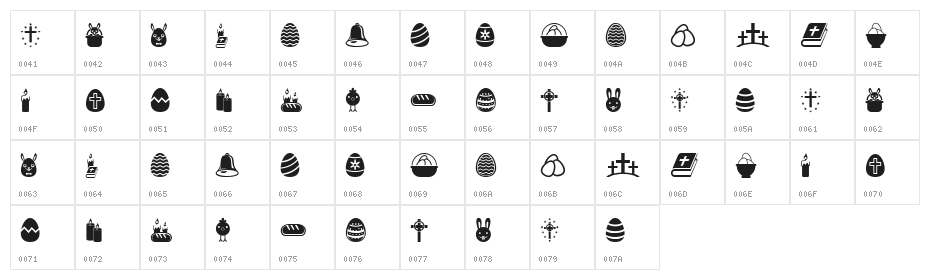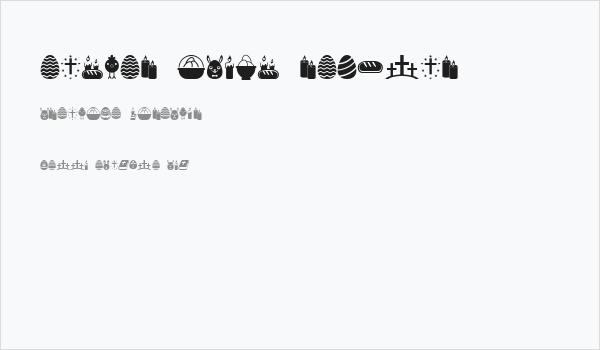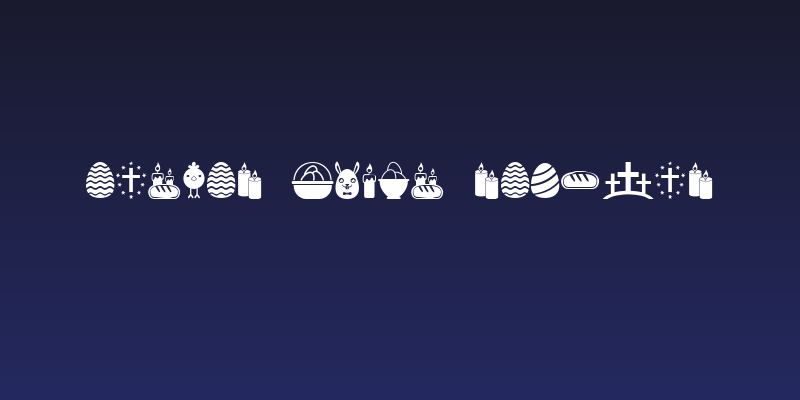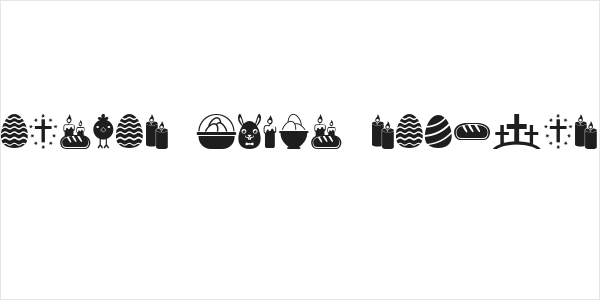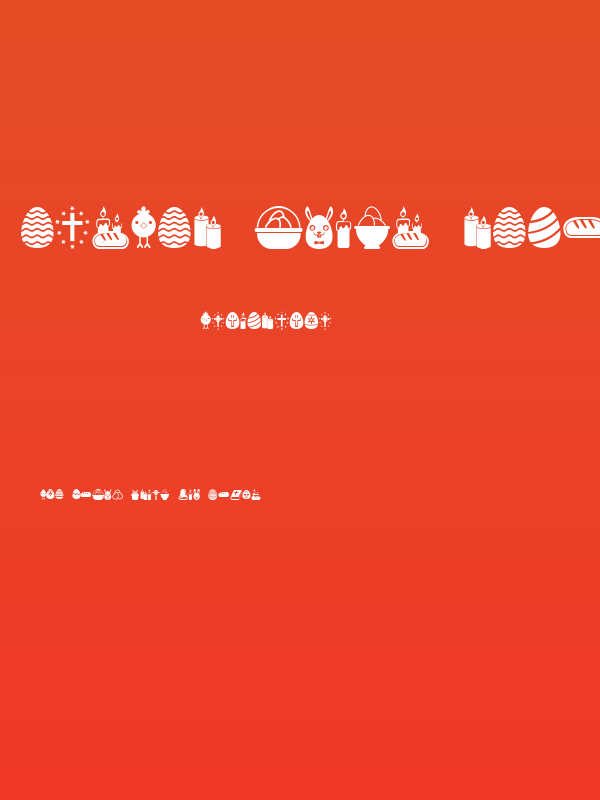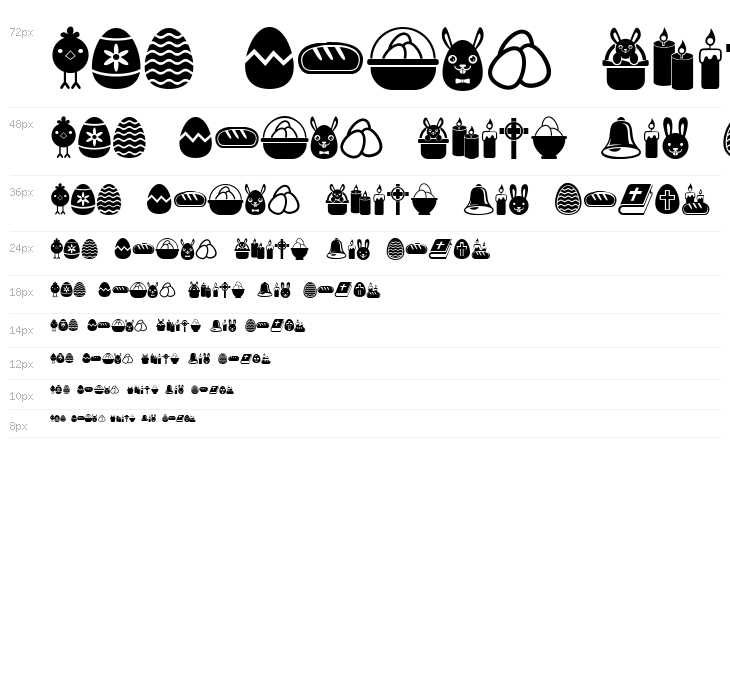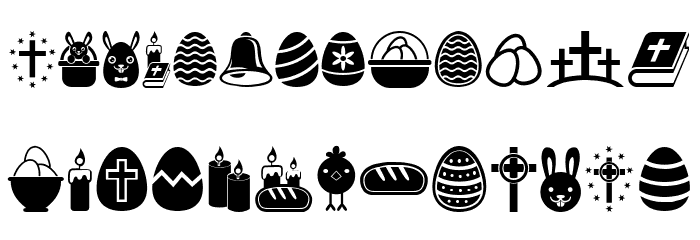
Easter Icons Regular Font
Easter Icons Regular Description
This collection features a variety of Easter-themed icons, each meticulously crafted to represent traditional symbols associated with the holiday. The icons include Easter eggs with intricate patterns, bunnies, crosses, candles, and other festive elements. Each icon is bold and clear, making them suitable for both digital and print media. The style is playful yet elegant, capturing the essence of Easter celebrations. The icons are uniform in size, ensuring a cohesive look when used together. Their simplicity and clarity make them versatile for various design projects.
| Use Case | Logos, Headlines, Decorative Elements |
| Proposed Projects | Ideal for Easter greeting cards, festive banners, social media graphics, and event invitations. |